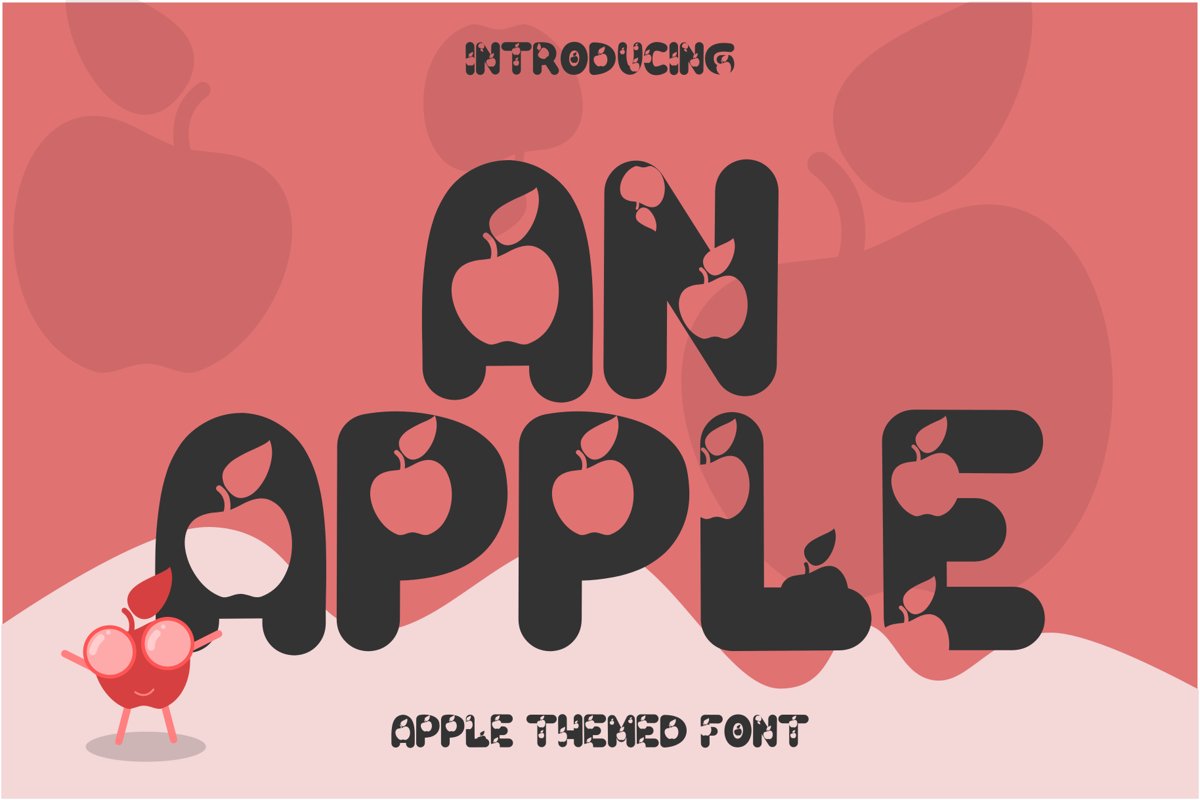
An Apple
An apple is a dream font that displays An apple on each letter. Fall in love with a pleasant look & feel. Printing on clothing or other media is very good and can make your work more satisfying. Clear and cool lettering details are great for printing or making stickers that will make children's mugs or t-shirts adorable.